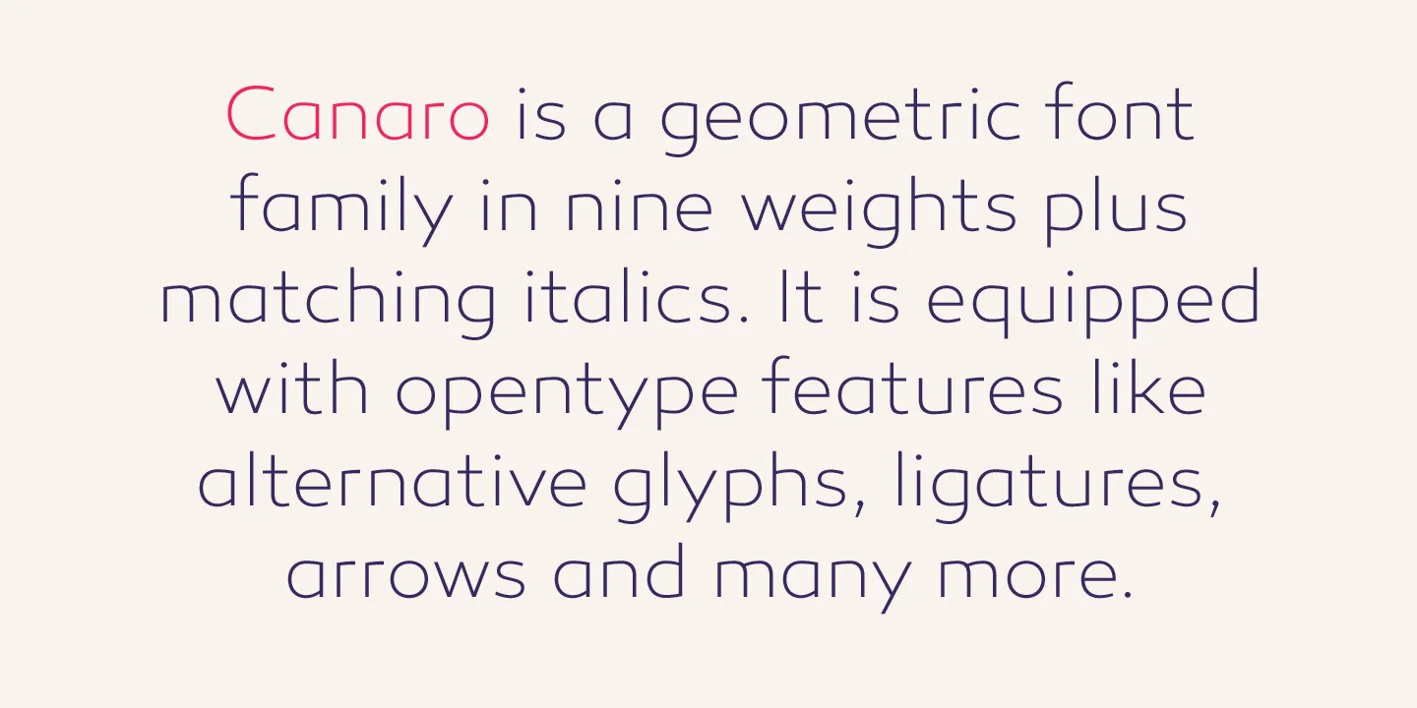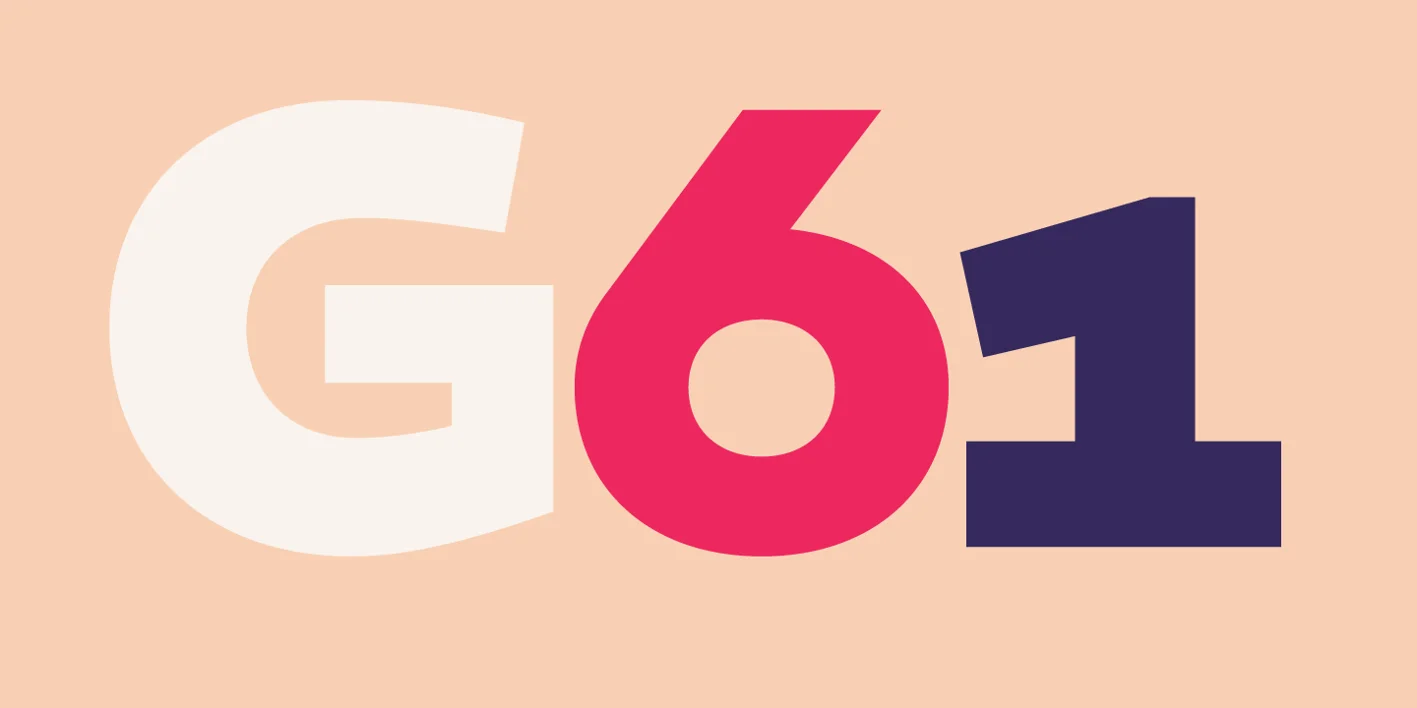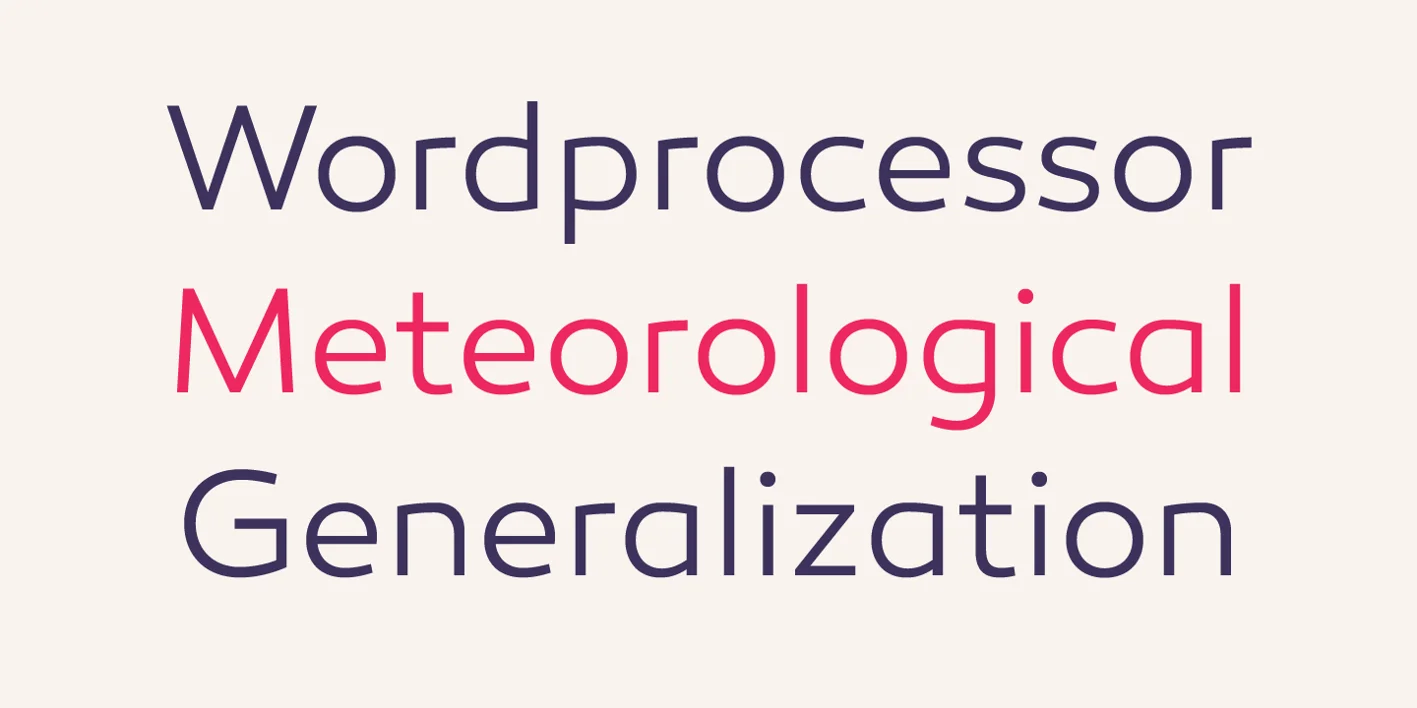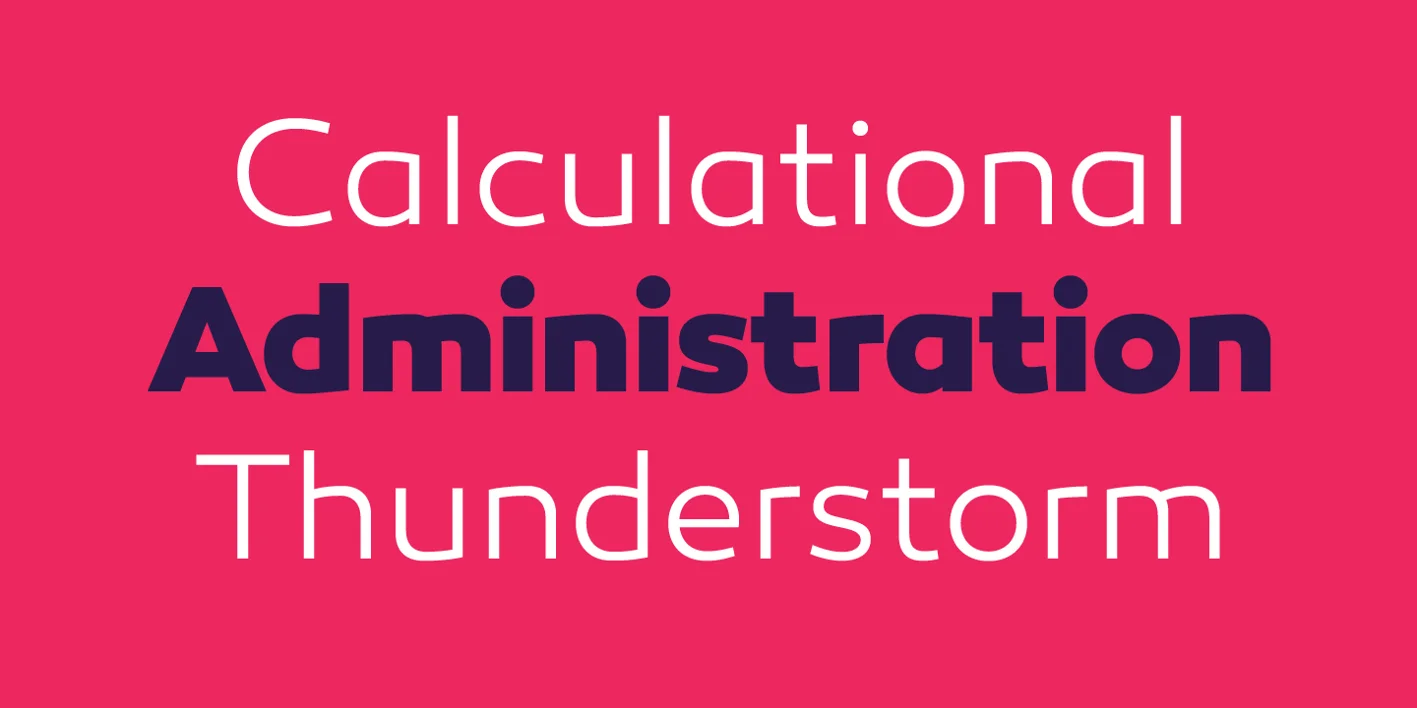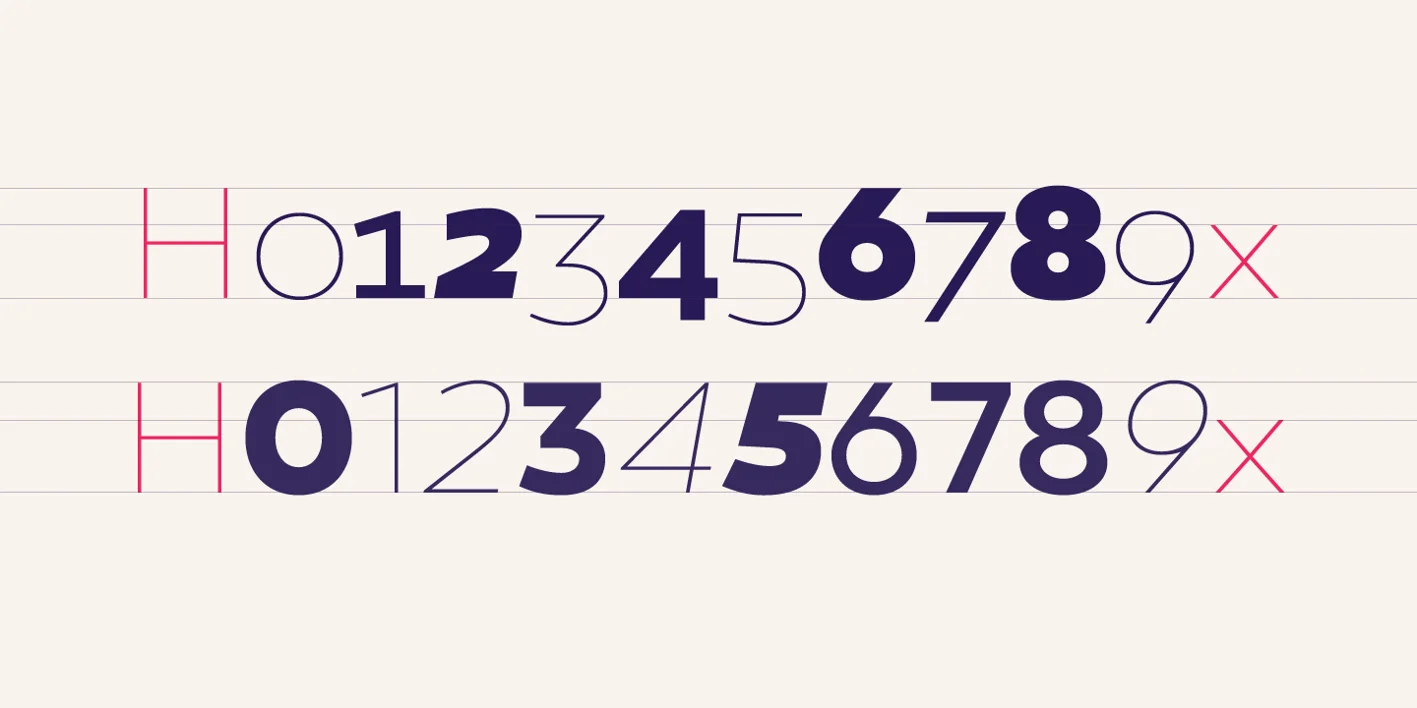
Canaro Font
A good typeface communicates tone before a single word is read. Canaro achieves this through strong typographic hierarchy support. The typeface brings a versatile sensibility to a broad range of creative disciplines, with optical balance across all weights that holds up whether the work is print-first or screen-first.
In practice, Canaro proves particularly effective for advertising campaigns, web design, brand identity systems, editorial layouts, signage systems. Designers reaching for it find that the type decisions feel resolved rather than laboured — a useful quality when client timelines are tight.
The range of applications extends to product labels, annual reports, logo design, environmental graphics. That breadth is deliberate: the proportions and spacing were stress-tested across a wide range of mock briefs before the typeface was finalised.
Freelance designers across print and digital disciplines find Canaro a reliable choice for projects that demand both personality and restraint. The design avoids the self-conscious quirkiness that dates quickly, settling instead for considered distinctiveness that holds up over time.